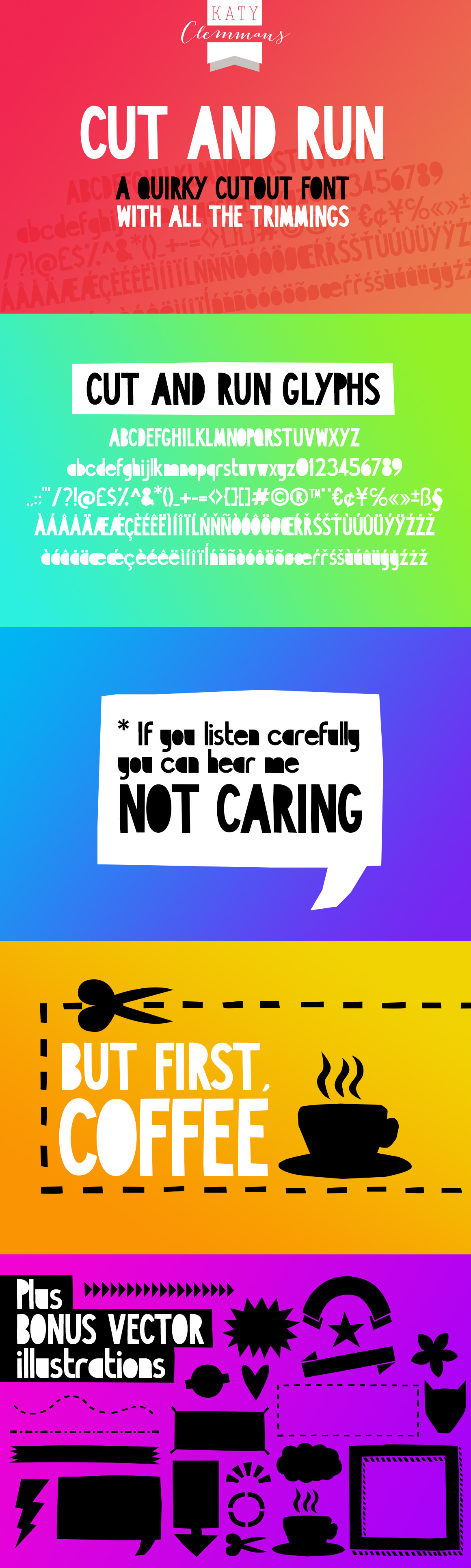
CUT AND RUN font
CUT AND RUN is a modern hand drawn, quirky cut out font perfect for bold, eye catching typographical projects.
WHAT'S INCLUDED: This font contains standard upper and lowercase characters, numbers, punctuation and many international characters.